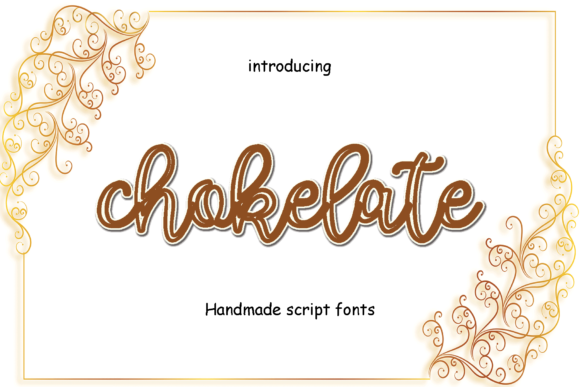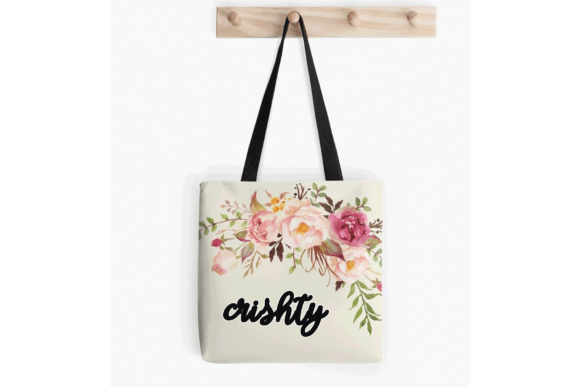
Chokelate Font
About Chokelate Font
Chokelate is a sweet, delicate handwritten font. Its round lettered and flowing style make this font incredibly versatile, fitting a wide pool of contexts. Fall in love with Chokelate and add it to your favorite projects!